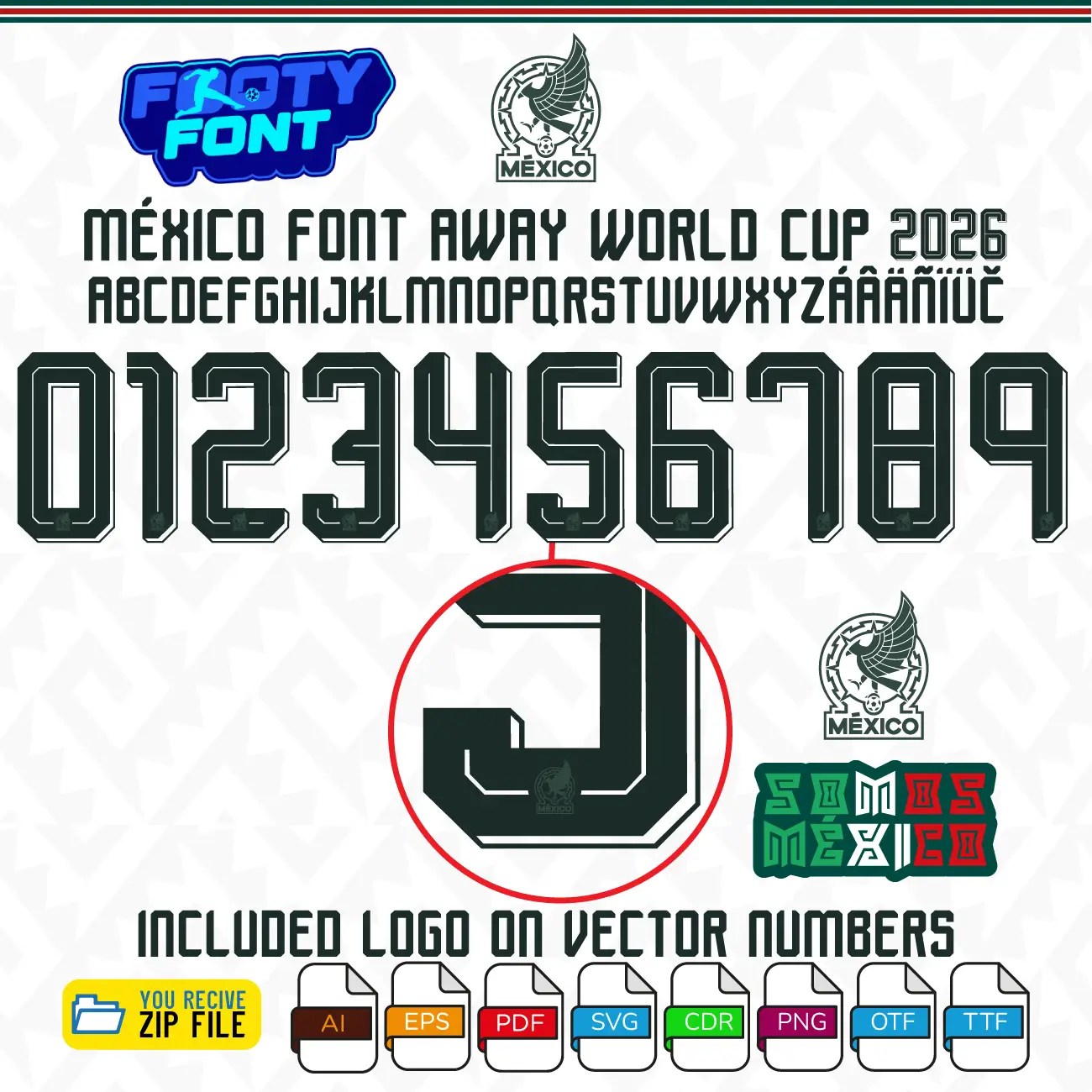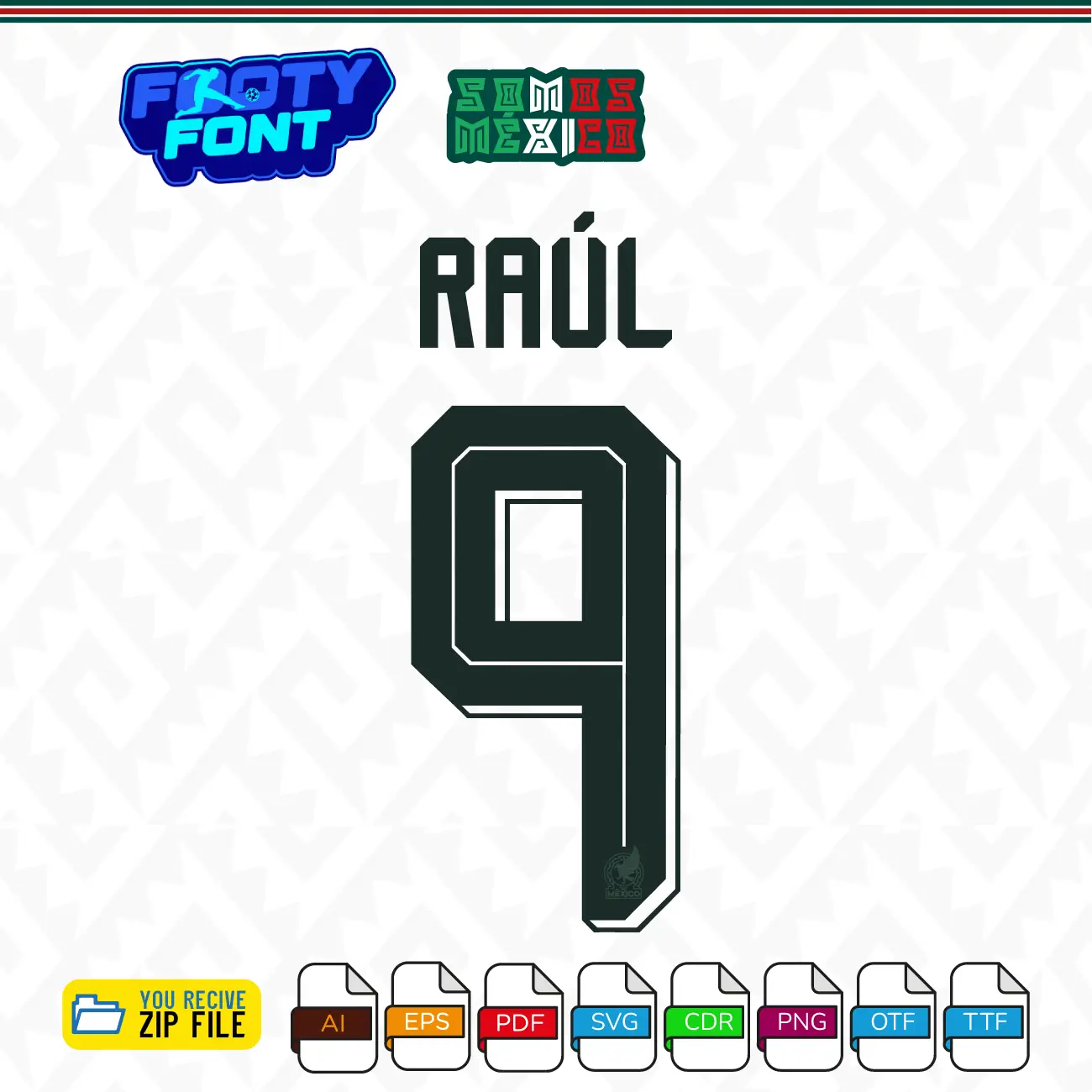
Mexico Font world cup 2026 Away kit
Get ready to host the world with this font, inspired by the Mexico 2026 World Cup Away kit. This typeface features the official sharp, angular, and blocky design chosen for El Tri’s crisp white away jersey, perfectly capturing the bold modern look and the subtle Mesoamerican heritage of the kit.
This font captures the style worn by the heroes of the Mexican National Team like Santiago Giménez, Raúl Jiménez, and Johan Vásquez. As Mexico prepares to co-host the biggest tournament in history, this font is absolutely essential for fans creating custom jersey designs, digital art, or posters that celebrate national pride.
Composite image showing Mexican players wearing the white away jersey alongside the complete character set of the Mexico Font World Cup 2026 Away.
A complete look at the Mexico Font World Cup 2026 Away, featuring the full number set and a real-world match photo of the Mexican national team.
Mexico Font world cup 2026 away kit featuring the complete alphabet and angular numbers.